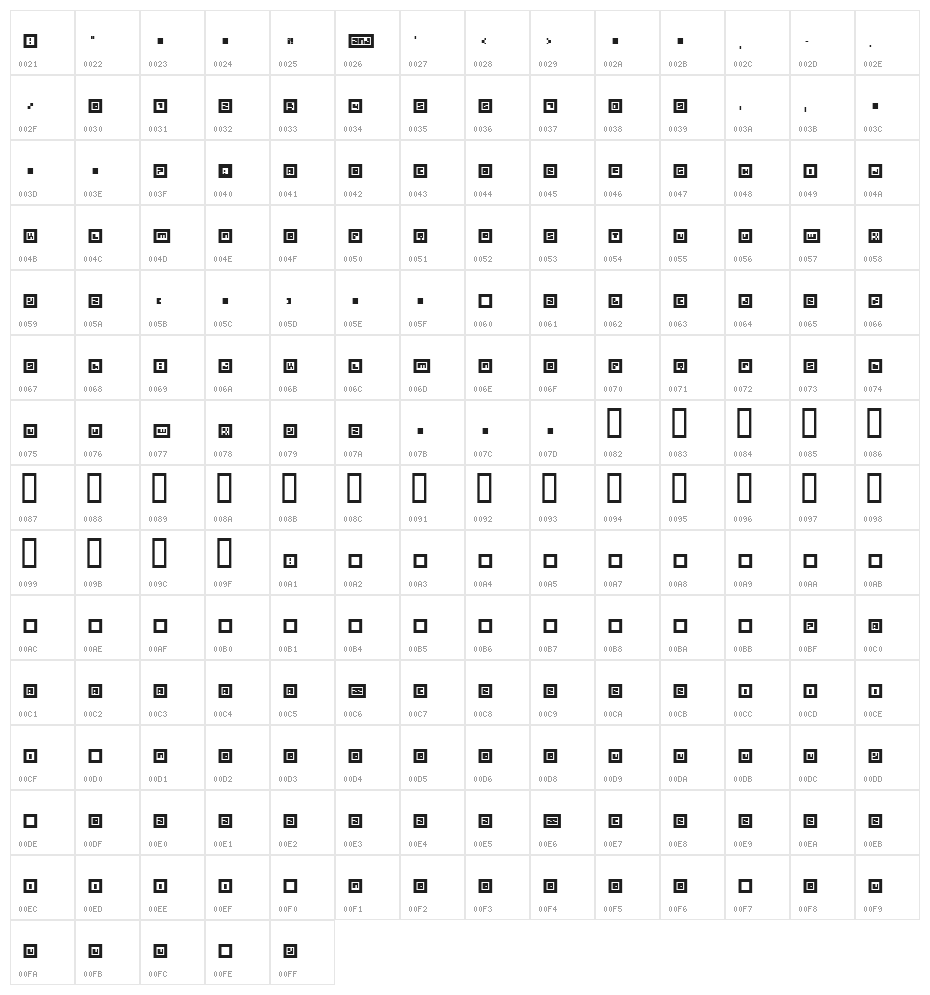
Metrobot Font
Metrobot Description
This font features a bold, geometric design with each character enclosed in a square, creating a distinct and futuristic appearance. The letters and numbers are crafted with sharp, angular lines, giving them a robotic and digital feel. The consistent use of squares around each character adds a uniform and structured look, making it highly suitable for digital displays or tech-themed projects. The font's style is reminiscent of early digital or arcade fonts, with a modern twist that enhances its visual impact. The boldness of the characters ensures readability while maintaining a unique aesthetic that stands out.
| Overall Style | Futuristic |
| Use Case | Headlines, Logos, Digital Displays |
| Proposed Projects | Ideal for tech-themed designs, digital displays, video game interfaces, and futuristic branding projects. |